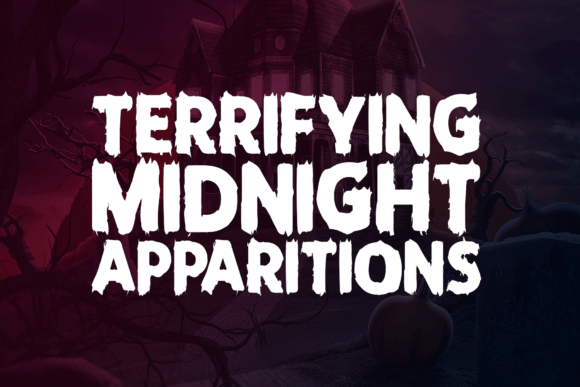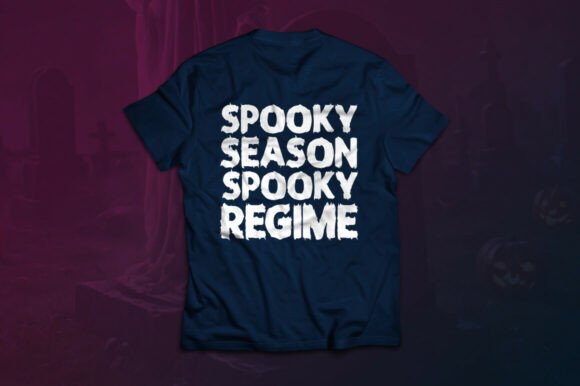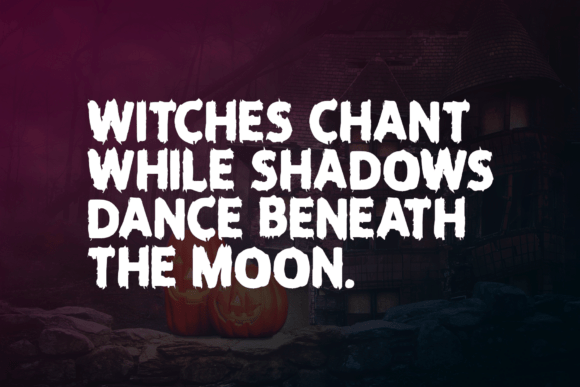
Unleash the Spook: Exploring the Ghost Walk Font
Are you on the hunt for a font that sends shivers down the spine? Look no further than the Ghost Walk font, a striking and eerie display font designed to make a lasting impression. With its powerful letterforms and haunting personality, this font is perfect for a variety of creative applications, from branding and logos to Halloween projects and edgy urban graphics.
The Power of Ghost Walk Font
Ghost Walk is more than just a font – it’s an experience. Its bold, eerie design commands attention and adds a strong presence to any layout. Whether you’re working on a spooky Halloween project or an edgy urban graphics design, Ghost Walk is the perfect choice. Its unique letterforms are designed to evoke a sense of mystery and intrigue, making it perfect for creative applications such as:
- Branding and logos: Make a lasting impression with a bold, eye-catching logo that sets your brand apart.
- Clothing: Add a touch of spooky style to your apparel designs with Ghost Walk’s haunting letterforms.
- Site headers: Create a dramatic and attention-grabbing header that sets the tone for your website.
- Flyers and posters: Stand out from the crowd with a bold, eye-catching design that demands attention.
- Music covers: Add a touch of edginess to your music cover art with Ghost Walk’s bold, haunting letterforms.
What Makes Ghost Walk Font So Special?
So, what sets Ghost Walk apart from other fonts? Here are just a few features that make it a standout:
- Unique letterforms: Ghost Walk’s letterforms are designed to be bold and eye-catching, with a unique, hand-crafted feel.
- Eerie personality: This font has a haunting, spooky personality that’s perfect for Halloween projects and edgy urban graphics.
- Versatility: Ghost Walk is perfect for a variety of creative applications, from branding and logos to clothing and music covers.
Tips for Using Ghost Walk Font
Here are a few tips for getting the most out of Ghost Walk font:
- Use it sparingly: Ghost Walk is a bold font, so use it sparingly to avoid overwhelming your design.
- Pair it with other fonts: Experiment with pairing Ghost Walk with other fonts to create a unique, eye-catching design.
- Play with colors: Ghost Walk looks great in a variety of colors, so don’t be afraid to experiment and find the perfect hue for your design.
If you’re looking for a font that will add a touch of spooky style to your designs, look no further than Ghost Walk. With its bold, eerie letterforms and versatile design, this font is perfect for a variety of creative applications. Whether you’re working on a Halloween project or an edgy urban graphics design, Ghost Walk is sure to make a lasting impression.
- What type of font is Ghost Walk? Ghost Walk is a display font, designed for use in bold, eye-catching designs.